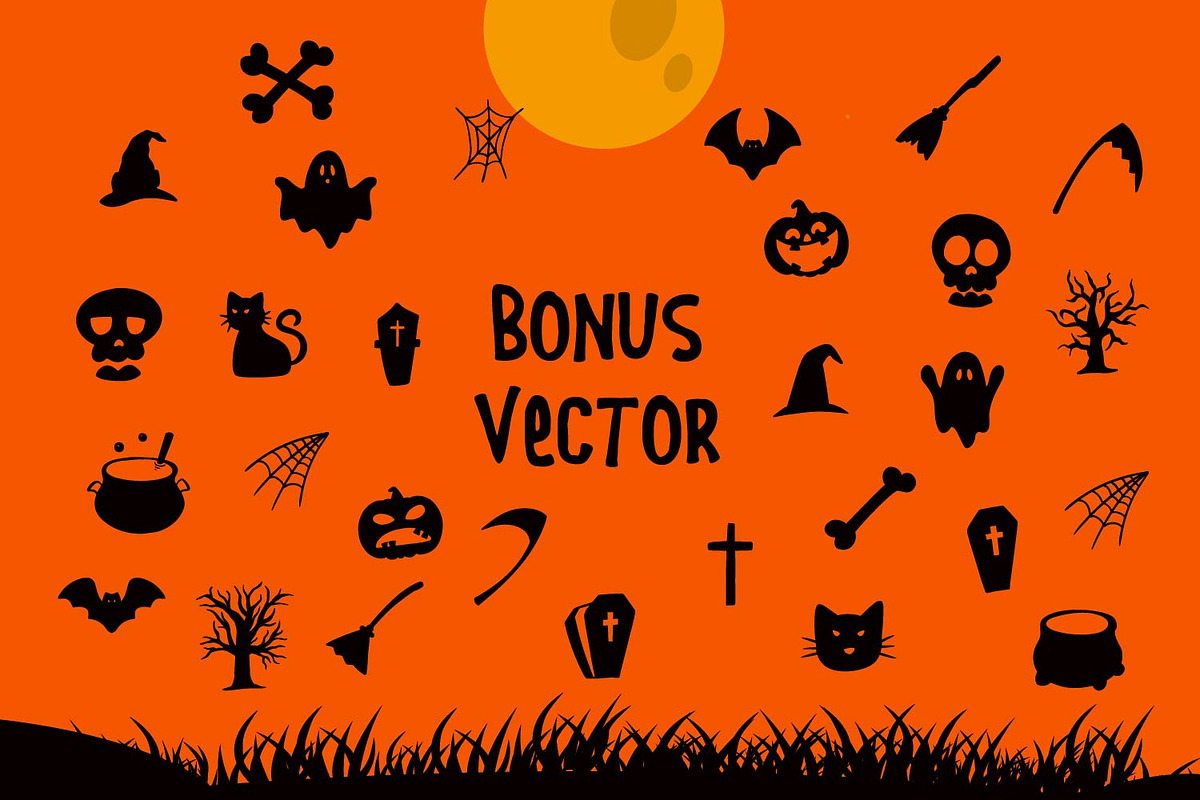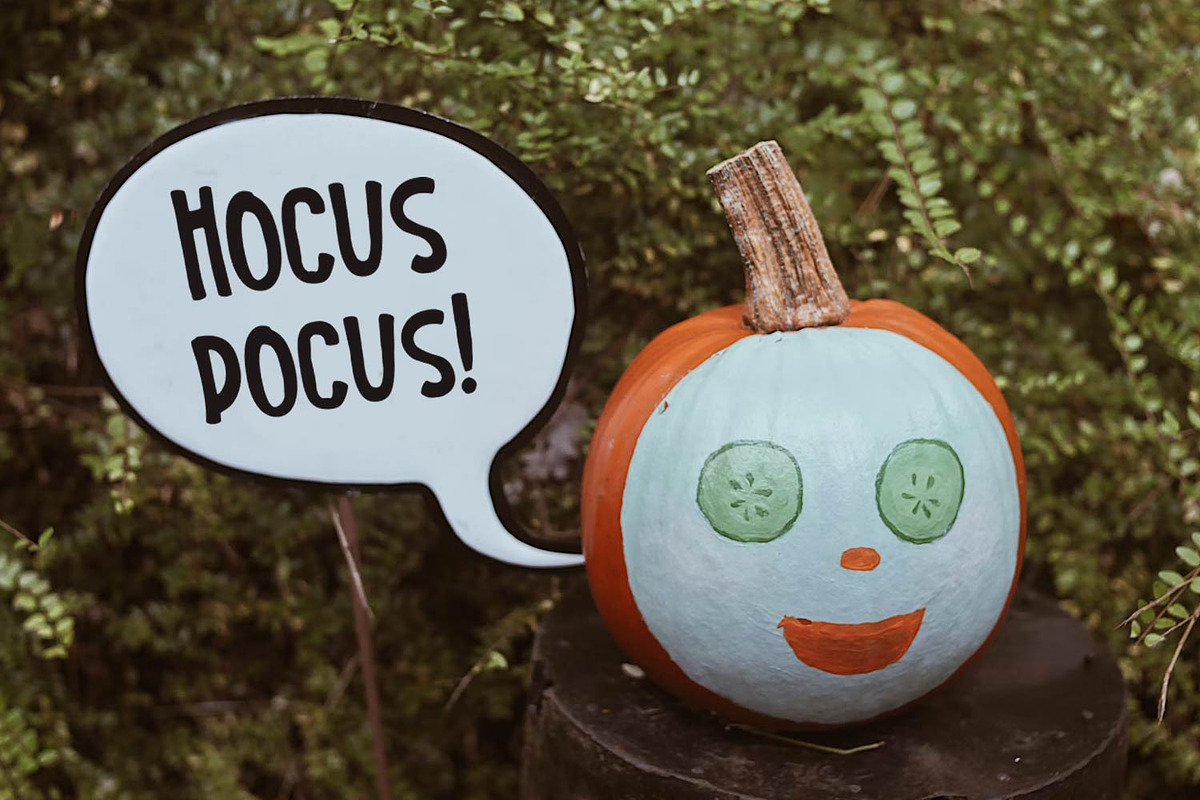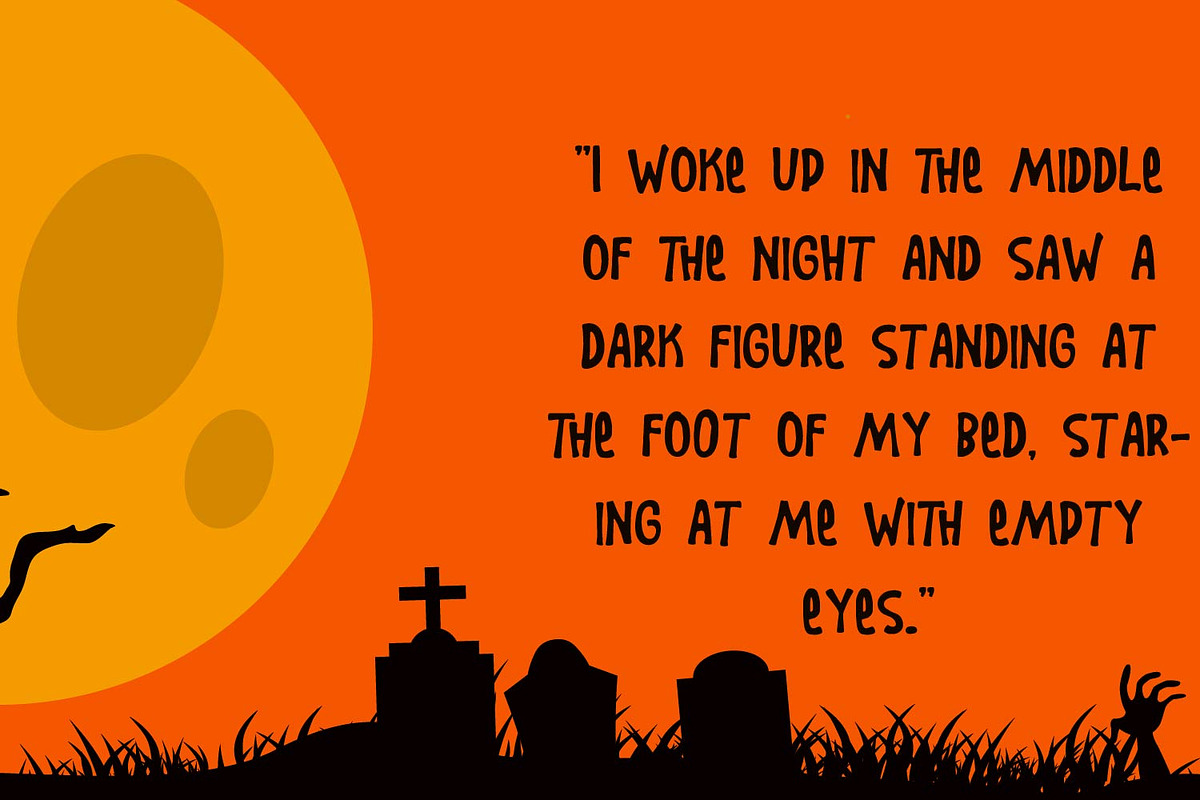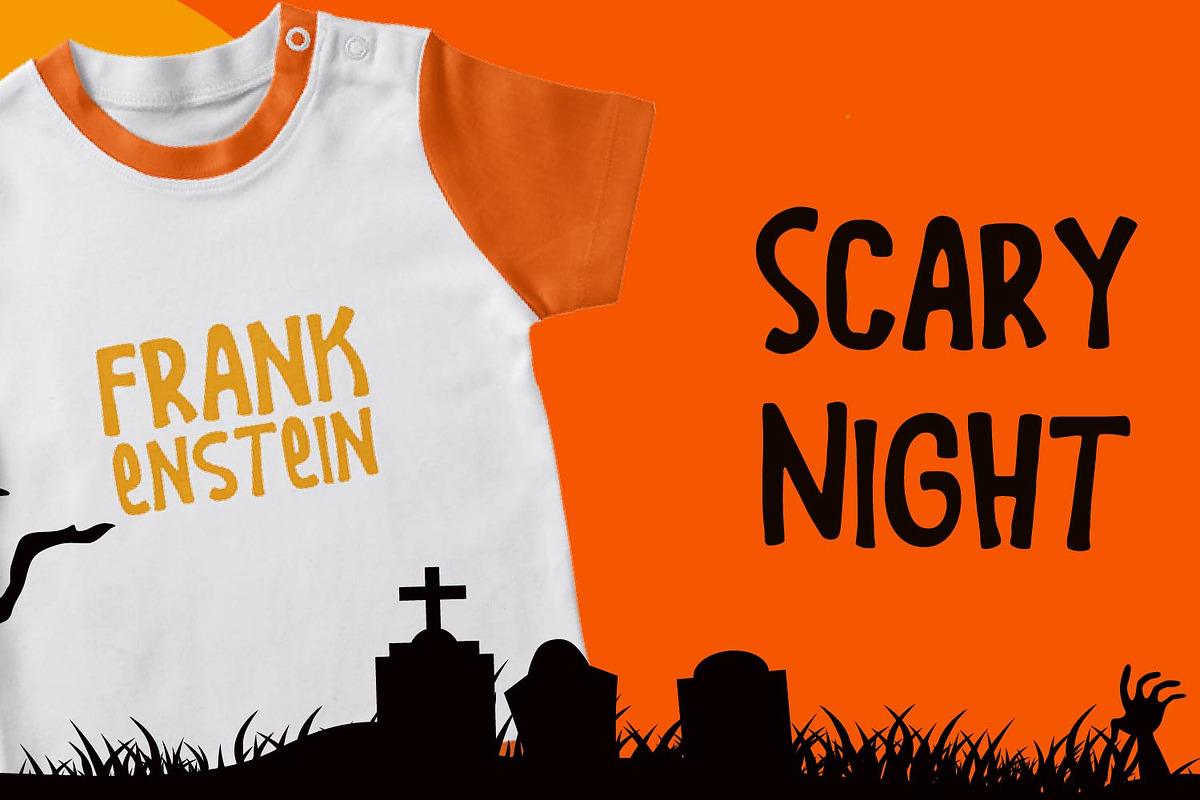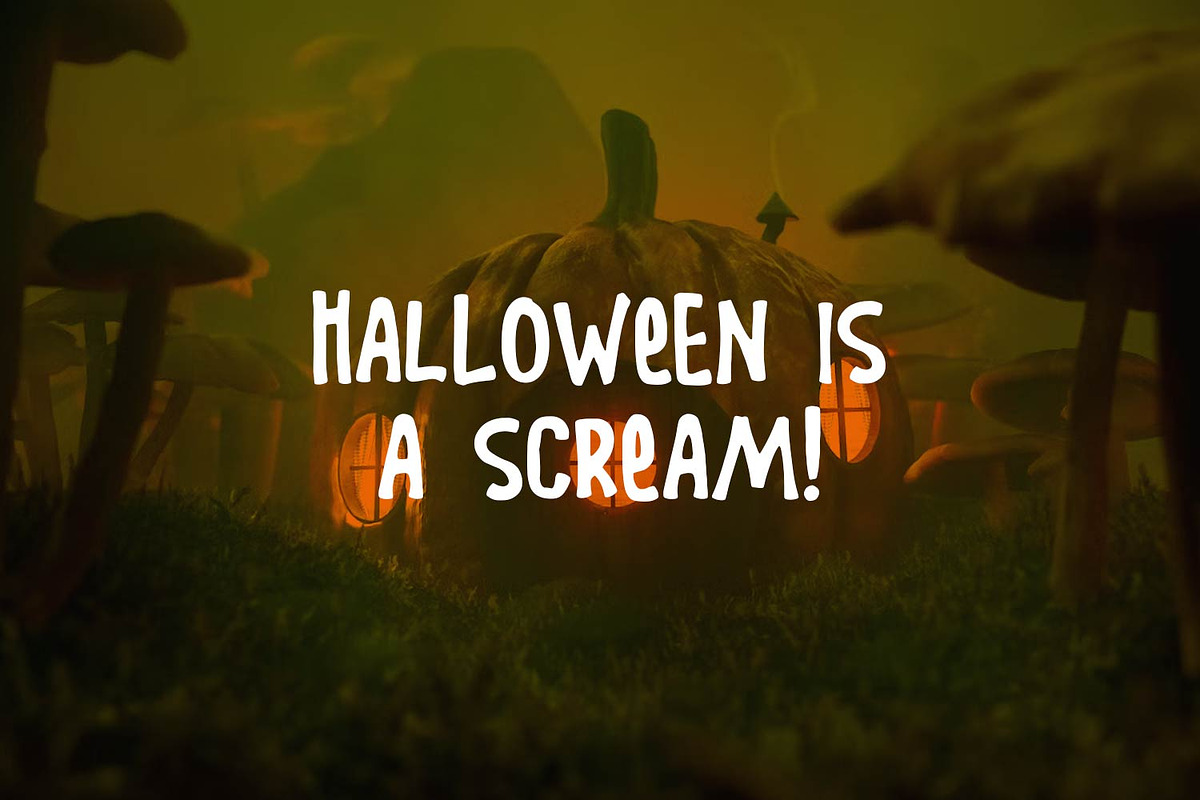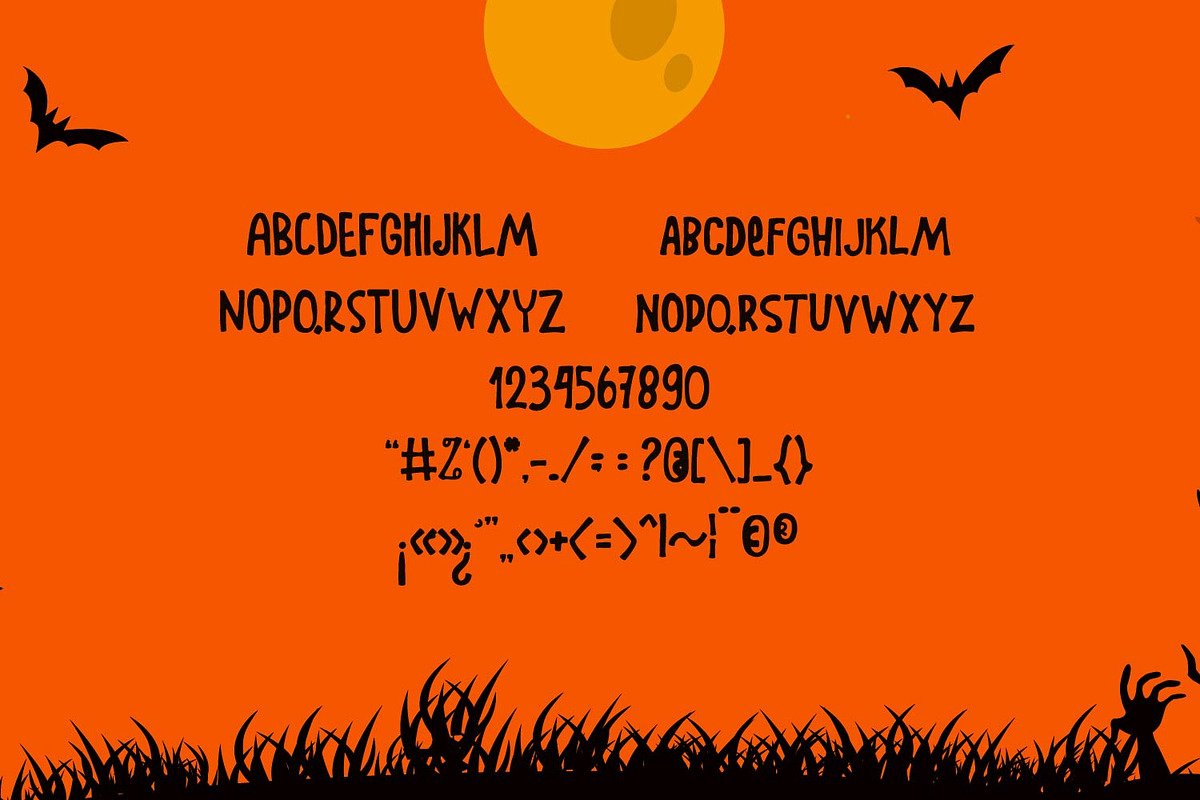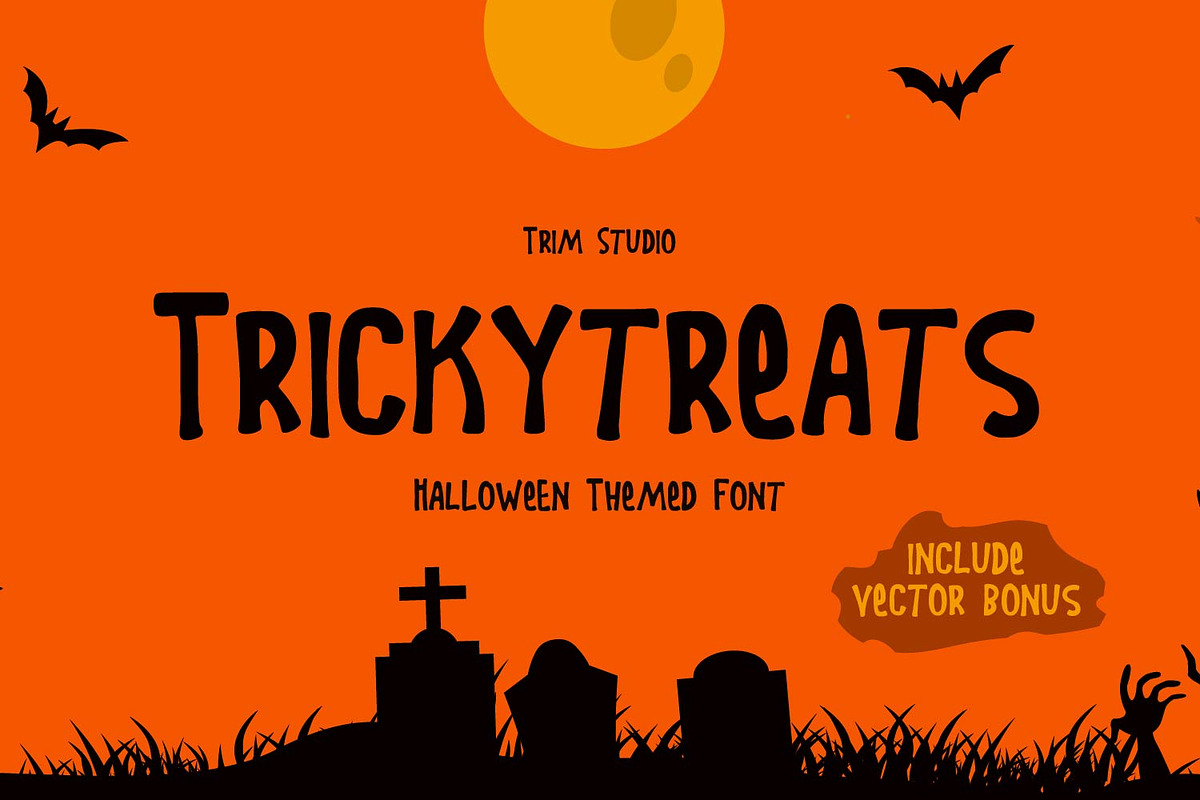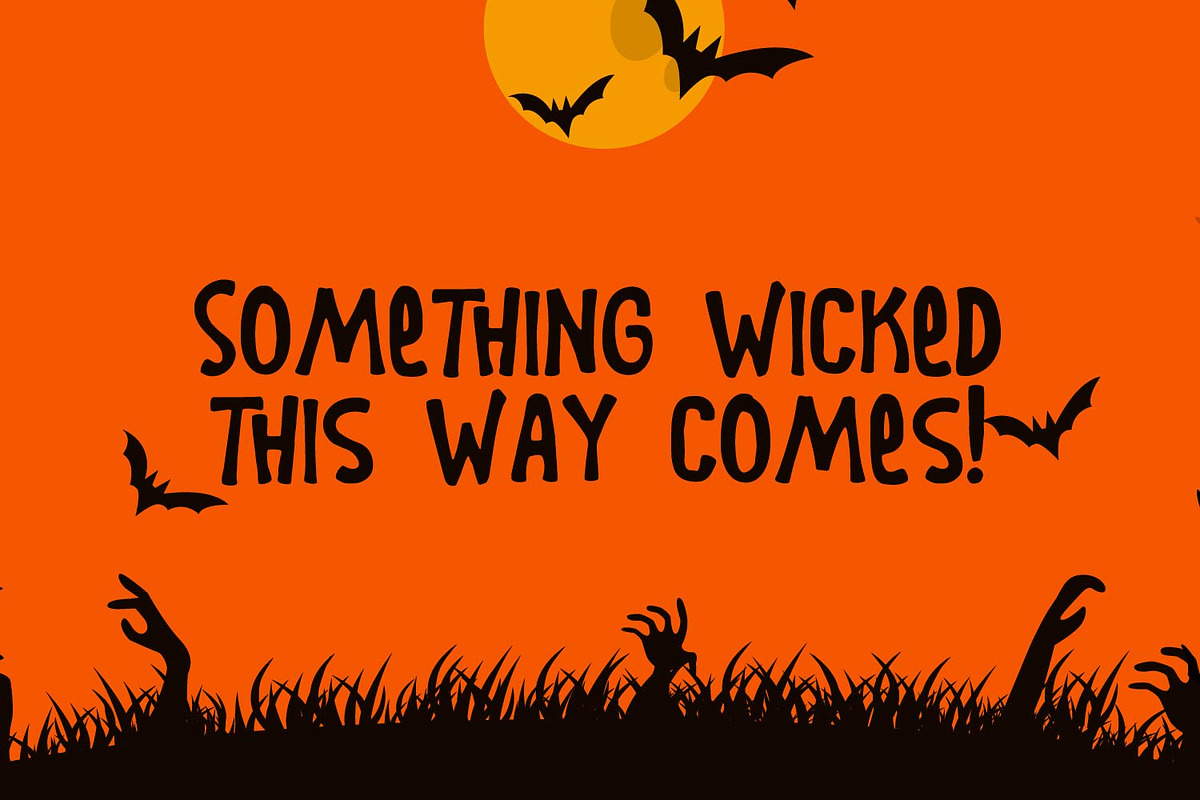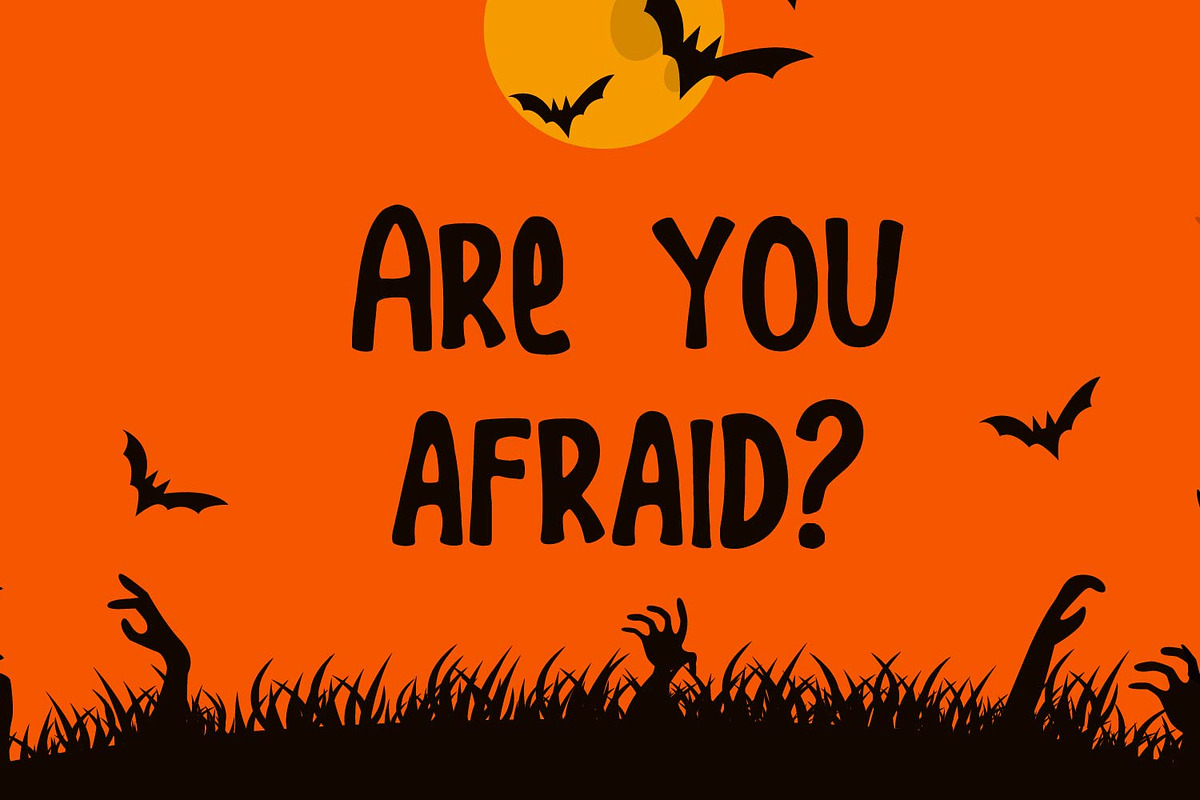
TrickyTreats - Halloween
TrickyTreats is a fun and quirky font that captures the spirit of Halloween with a touch of absurdity. Its unconventional letterforms and playful style add a whimsical twist to your designs. Each character is filled with Halloween-themed elements, creating a unique and memorable look.